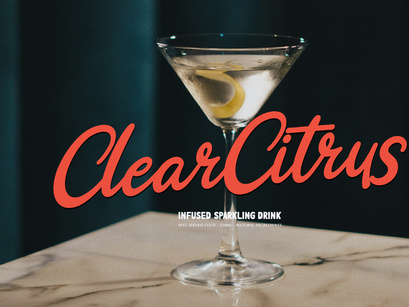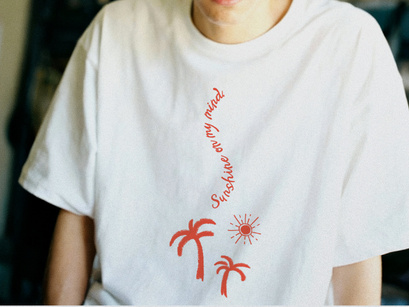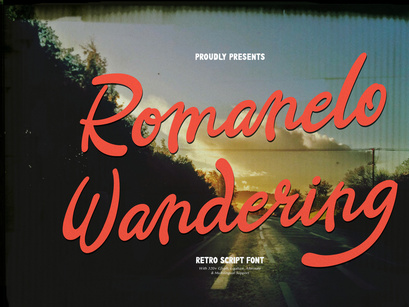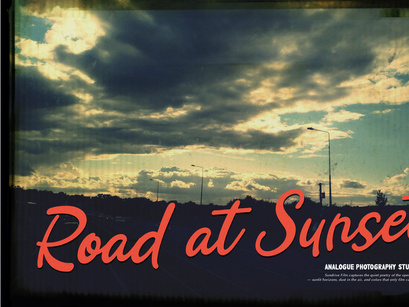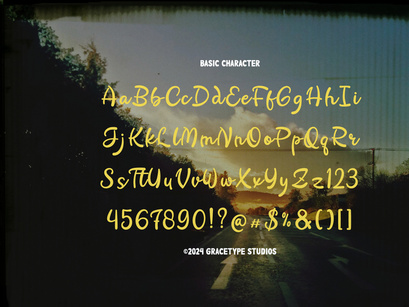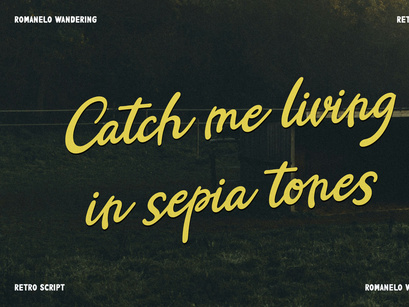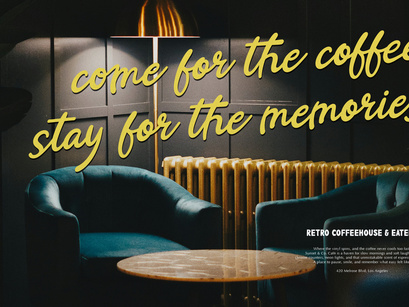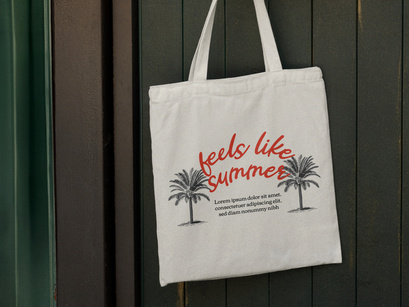
Romanelo Wandering | Retro Script Font
Romanelo Wandering Italic
Romanelo Wandering
Romanelo Wandering | Retro Script Font, from Gracetypestudio, suitable for any projects such as: logos, branding projects, homeware designs, product packaging, mugs, quotes, posters, shopping bags, t-shirts, book covers, name card, invitation cards, greeting cards, label, photography, watermark, special events, and all your other lovely projects that need a Retro Script taste.